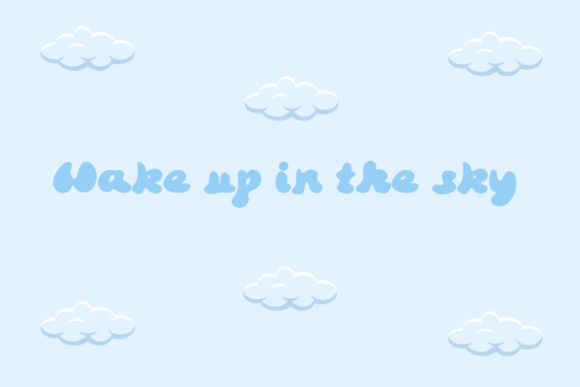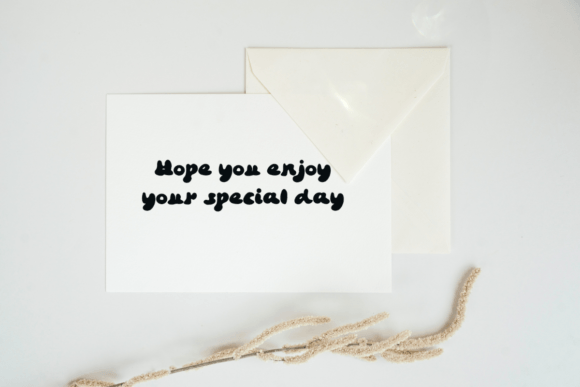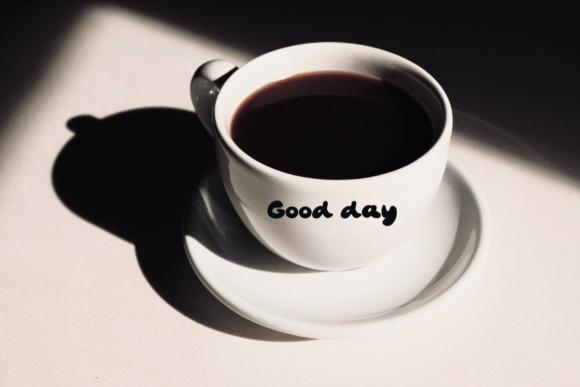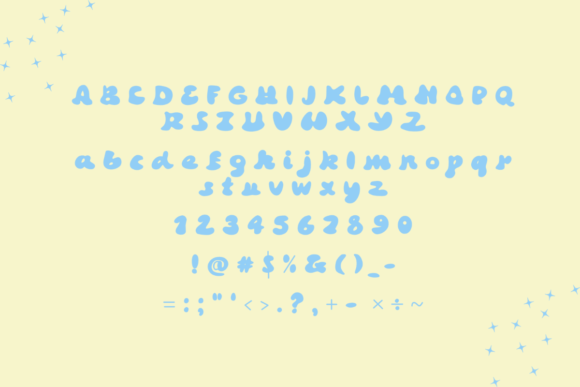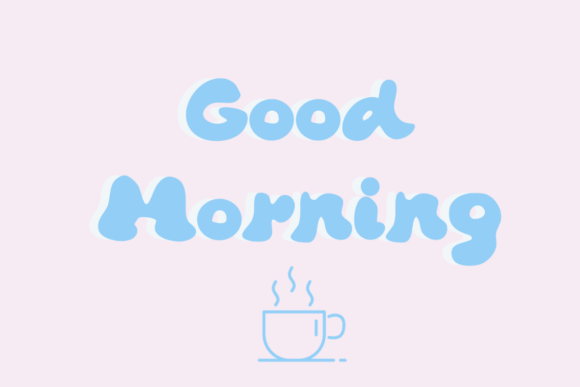
Introducing Good Morning Font: A Cute and Charming Display Font
Are you tired of using the same old fonts in your designs? Look no further! Good Morning Font is a delightful and whimsical display font that’s sure to brighten up your projects. With its quirky and charming personality, this font is perfect for designers and crafters who want to add a touch of fun and playfulness to their work.
What Makes Good Morning Font So Special?
Good Morning Font is a unique and eye-catching font that’s designed to make your designs stand out. Its cute and charming personality makes it perfect for a variety of projects, from greeting cards and invitations to posters and social media graphics. Whether you’re a professional designer or a crafty DIY enthusiast, this font is sure to become a favorite in your collection.
Key Features of Good Morning Font
- Whimsical and quirky design: Good Morning Font has a playful and charming personality that’s sure to add a touch of fun to your designs.
- Cute and charming: This font is perfect for projects that require a sweet and endearing touch, such as greeting cards, invitations, and children’s designs.
- Display font: Good Morning Font is designed to be used as a display font, making it perfect for headlines, titles, and other prominent text elements.
- Easy to read: Despite its playful design, Good Morning Font is easy to read and understand, making it perfect for use in a variety of projects.
How to Use Good Morning Font in Your Designs
Good Morning Font is a versatile font that can be used in a variety of projects, including:
- Greeting cards and invitations: Add a touch of whimsy and charm to your greeting cards and invitations with Good Morning Font.
- Posters and flyers: Use Good Morning Font to create eye-catching posters and flyers that are sure to grab attention.
- Social media graphics: Add a playful touch to your social media graphics with Good Morning Font.
- Children’s designs: Good Morning Font is perfect for use in children’s designs, such as children’s books, educational materials, and kids’ party decorations.
Why Designers and Crafters Love Good Morning Font
Good Morning Font has quickly become a favorite among designers and crafters, and for good reason. Here are just a few reasons why:
- Unique and eye-catching: Good Morning Font is a unique and eye-catching font that’s sure to make your designs stand out.
- Versatile: Good Morning Font can be used in a variety of projects, from greeting cards and invitations to posters and social media graphics.
- High-quality design: Good Morning Font is designed with high-quality craftsmanship, ensuring that it looks great in any project.
| Font Name | Good Morning Font |
| Author | fonty88 |
Good Morning Font is a cute and charming display font that’s sure to brighten up your designs. With its whimsical and quirky personality, this font is perfect for designers and crafters who want to add a touch of fun and playfulness to their work. Whether you’re creating greeting cards, posters, social media graphics, or children’s designs, Good Morning Font is a great choice. So why wait? Download Good Morning Font today and start adding a touch of charm and whimsy to your designs!